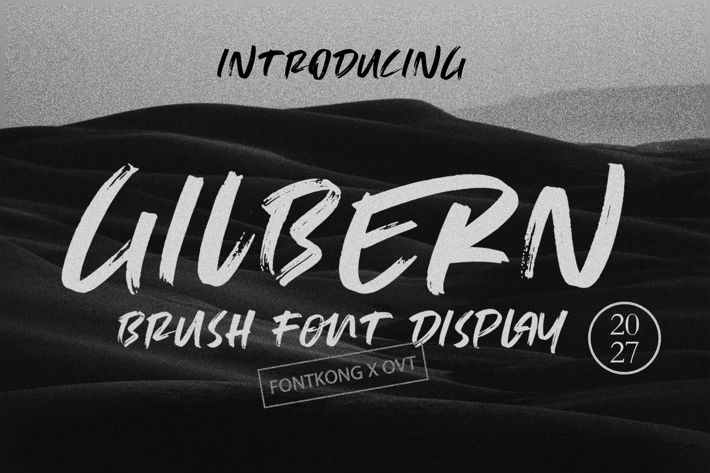
Gilbern - Brush Font Display
Introducing "Gilbern," a dynamic brush font display that brings boldness and artistic flair to your design projects. Perfect for designers, illustrators, and creatives looking to add a handcrafted touch to their work, Gilbern combines the energy of brushstrokes with the clarity of display typography.
Ideal for posters, headlines, logos, and branding materials, Gilbern’s expressive and textured style provides a striking visual impact. Each character is meticulously designed to capture the fluidity and spontaneity of brush lettering, making it an excellent choice for projects that demand a unique and artistic touch.
The "Gilbern" font includes a complete set of uppercase and lowercase letters, numbers, and punctuation marks, offering versatility and flexibility for various design applications. Whether you're creating captivating advertisements or distinctive brand identities, Gilbern enhances your projects with its bold and creative typography.
Unleash your creativity with Gilbern, a brush font display that adds boldness and artistry to every design.
Introducing "Gilbern," a dynamic brush font display that brings boldness and artistic flair to your design projects. Perfect for designers, illustrators, and creatives looking to add a handcrafted touch to their work, Gilbern combines the energy of brushstrokes with the clarity of display typography.
Ideal for posters, headlines, logos, and branding materials, Gilbern’s expressive and textured style provides a striking visual impact. Each character is meticulously designed to capture the fluidity and spontaneity of brush lettering, making it an excellent choice for projects that demand a unique and artistic touch.
The "Gilbern" font includes a complete set of uppercase and lowercase letters, numbers, and punctuation marks, offering versatility and flexibility for various design applications. Whether you're creating captivating advertisements or distinctive brand identities, Gilbern enhances your projects with its bold and creative typography.
Unleash your creativity with Gilbern, a brush font display that adds boldness and artistry to every design.